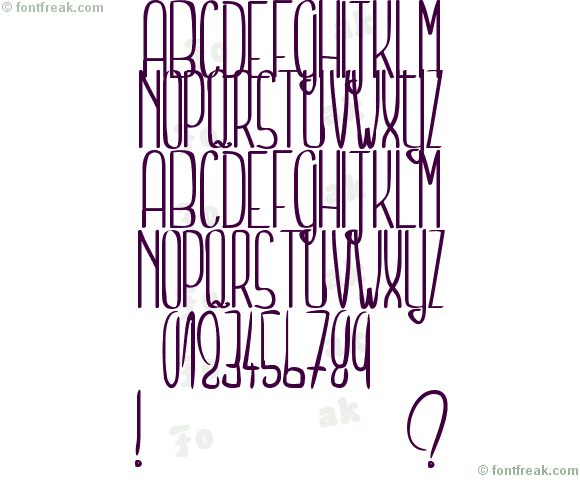
Tell me a secret light
Tell me a secret
The Tell me a secret light font by Maelle.K is a charming handwritten typeface that captivates with its unique flair. This font falls into the script category, characterized by its casual yet elegant strokes. The light stroke weight gives it a delicate appearance, while the subtle contrast adds a touch of sophistication. The letters feature a slightly irregular spacing that enhances its handwritten quality, making it feel personal and inviting. Decorative elements are minimal, allowing the natural flow of the letters to take center stage, which contributes to a warm and approachable aesthetic.
This versatile font is ideal for a variety of creative projects. It can be effectively used for wedding invitations, where its elegant style adds a personal touch. Additionally, it works wonderfully for children's book covers, as its playful design captures the imagination. Restaurant menus can also benefit from its inviting nature, making customers feel welcome. Furthermore, it is a great choice for social media graphics, allowing content creators to convey messages in a fun and engaging manner.
What sets the Tell me a secret light font apart is its ability to evoke a sense of warmth and intimacy, making it not just a typeface, but a tool for storytelling. With its unique charm, the Tell me a secret light font free download is a must-have for anyone looking to add a personal touch to their designs.